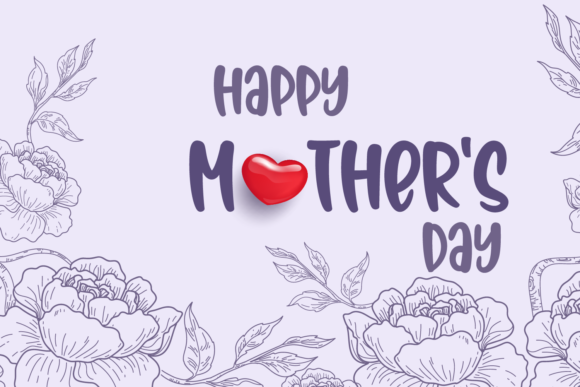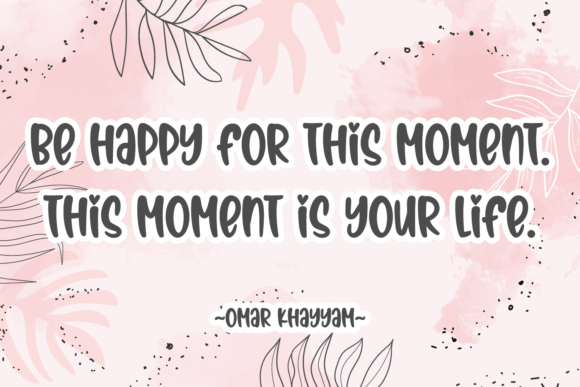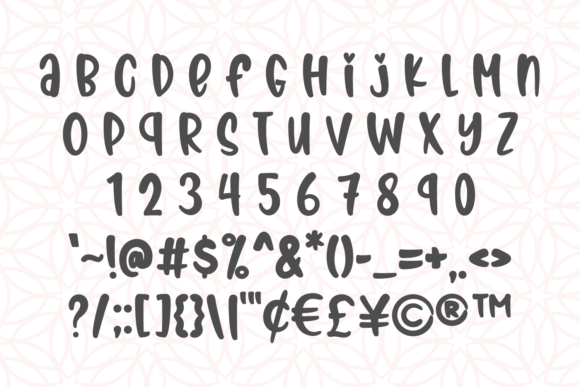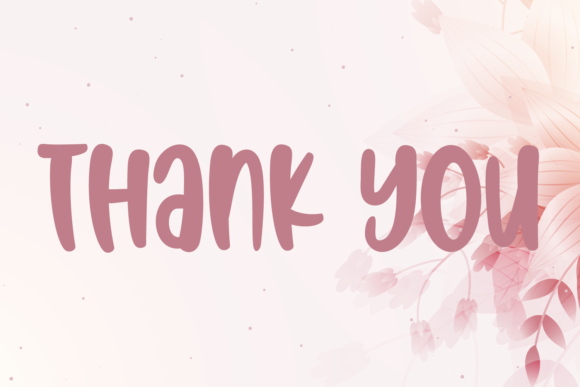
Introduction to Mother Smile Font
Mother Smile is a fun, quirky and joyful display font.
Key Features of Mother Smile Font
Why Choose Mother Smile Font?